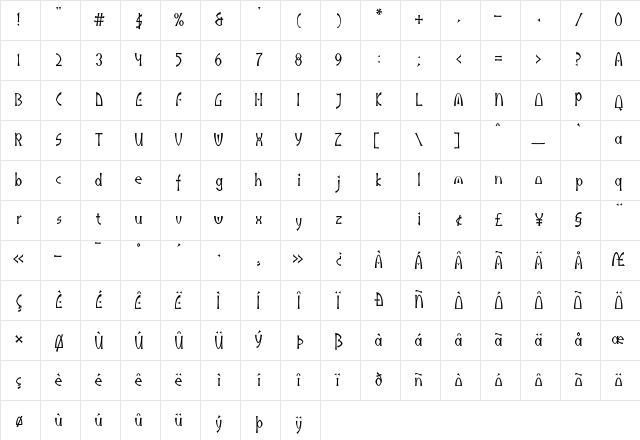
Indus Regular
Design Context for Indus
Indus is a composed and adaptable typeface that performs quietly and consistently across a wide range of design contexts.